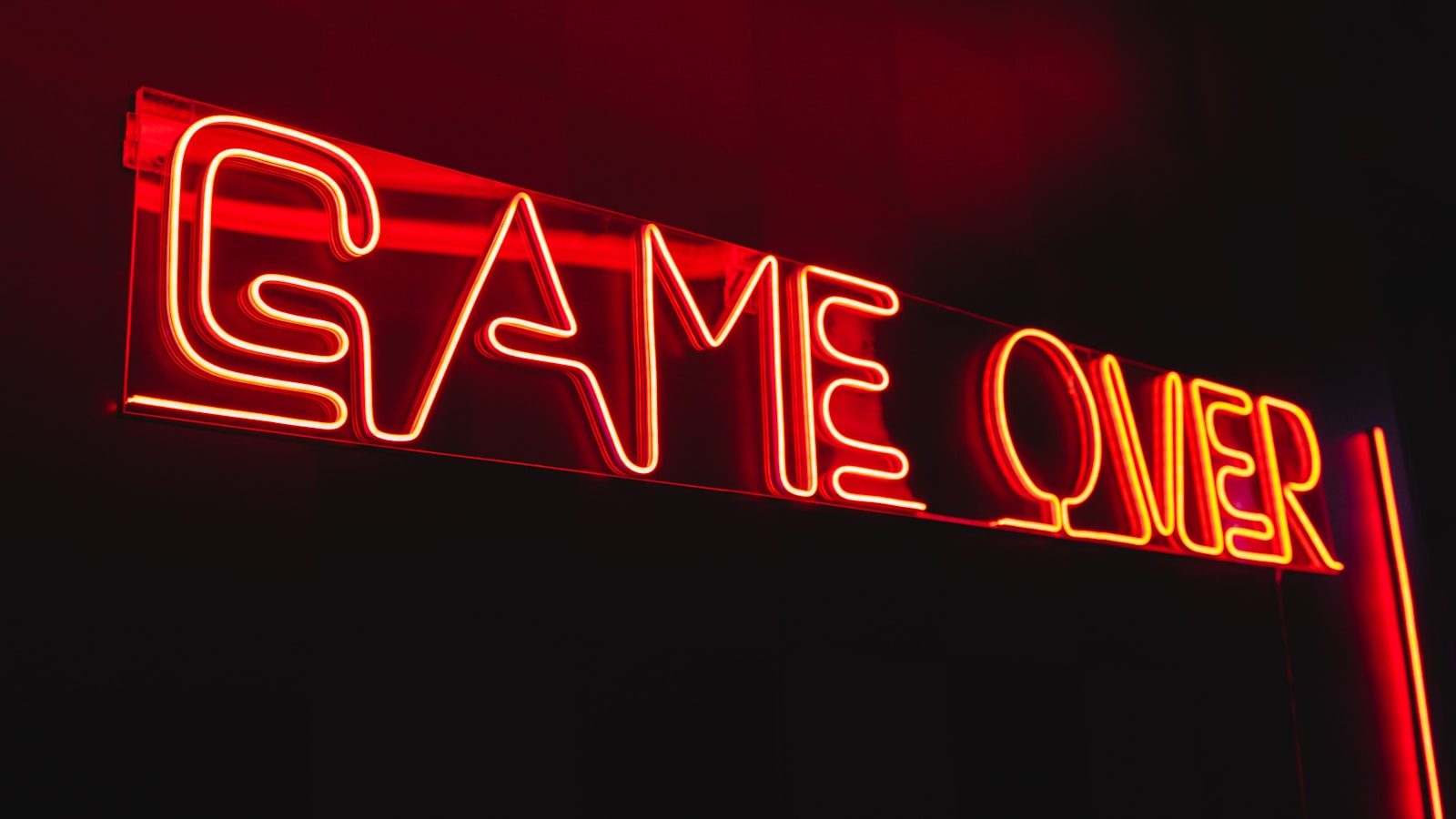
How to Choose the Best Gaming Font for Every Design Project in 2026
A gaming font can introduce a world before a player sees a character, hears a soundtrack, or presses the start button. Pixel lettering evokes arcade nostalgia. Sharp geometric forms suggest futuristic technology. Heavy condensed letters can make an esports logo feel competitive, while distressed gothic typography signals mystery, danger, or horror.
Expressive typography is especially timely in 2026. The Adobe design trends report for 2026 highlights exaggerated lettering, immersive high-energy visuals, nostalgic influences, futuristic aesthetics, and more organic handwritten forms. Those ideas align naturally with game design, but visual impact still has to be balanced against readability.
The challenge is finding a gaming font that creates the right atmosphere without making the design difficult to use. A typeface may look impressive in a large logo but fail in a small mobile menu. Another may work in English but lack the accented characters, symbols, or language support required for a global audience.
Choosing the right font therefore involves more than finding something that looks futuristic, pixelated, or bold. It requires a clear understanding of the project, its technical environment, licensing requirements, audience, and the job each line of text must perform.
What Are Gaming Fonts?
Gaming fonts are typefaces associated with video games, streaming, esports, technology, fantasy, and digital entertainment. They are frequently designed as display fonts, meaning they perform best in titles, logos, posters, thumbnails, and short interface labels rather than long paragraphs.
There is no single visual formula for a gaming font. The category includes blocky pixel fonts, clean futuristic sans-serif families, gothic lettering, tactical stencil designs, handwritten fantasy faces, dynamic italic styles, and oversized geometric type.
What connects these font styles is their ability to communicate a particular gaming experience.
A pixel font can remind players of early consoles and arcade games. A wide futuristic font may suit a science-fiction title. Sharp gothic lettering can establish the tone of a horror game before the first scene begins. A bold condensed sans-serif may help an esports brand appear fast, focused, and competitive.
Regular fonts generally prioritize neutral communication and sustained readability. Gaming typography often has a stronger personality. That personality is valuable, but it also creates limits. The more decorative the typeface becomes, the less suitable it may be for instructions, settings, subtitles, or dense interface content.
Successful game design usually relies on a compact font system rather than one decorative family used everywhere. A distinctive display font handles the game logo and major headings, while a cleaner companion font carries menus, statistics, descriptions, and other functional information.
Gaming Font Styles for Every Type of Gamer
The best gaming fonts are not defined by popularity alone. Their value depends on how well they support the world, genre, audience, and visual language of a project.
Pixel and Retro Gaming Fonts
Pixel and retro gaming fonts recreate the restricted grids associated with early screens, arcade cabinets, and classic console graphics. Their square forms and stepped curves immediately communicate nostalgia.
These fonts are a natural match for arcade games, retro platformers, pixel-art adventures, throwback merchandise, and streaming channels focused on classic titles. They can also add playful contrast to an otherwise modern design project.
Pixel typography requires careful sizing. A font designed around a small grid may look crisp at one size but uneven or blurry when scaled incorrectly. Test the font at the exact dimensions used in the finished interface, logo, or thumbnail.
Avoid unnecessary smoothing and effects that weaken the intended pixel structure. A strong pixel font should look deliberate rather than merely low-resolution.
Futuristic and Sci-Fi Gaming Fonts
Futuristic fonts commonly use geometric shapes, angular cuts, extended widths, unusual crossbars, or carefully controlled spacing. Some resemble industrial markings, spacecraft interfaces, robotics, or digital displays.
They work well in science-fiction games, racing titles, cyberpunk projects, technology channels, and modern esports branding. A futuristic font can also support a clean and minimalistic project when its geometric style remains restrained.
In 2026, expressive typography is becoming bolder, more playful, and more immersive. The strongest game projects will use that creative freedom without losing sight of clarity.
When style and function work together, typography becomes more than decoration. It helps players recognize the brand, understand the interface, and enter the game’s world with confidence.